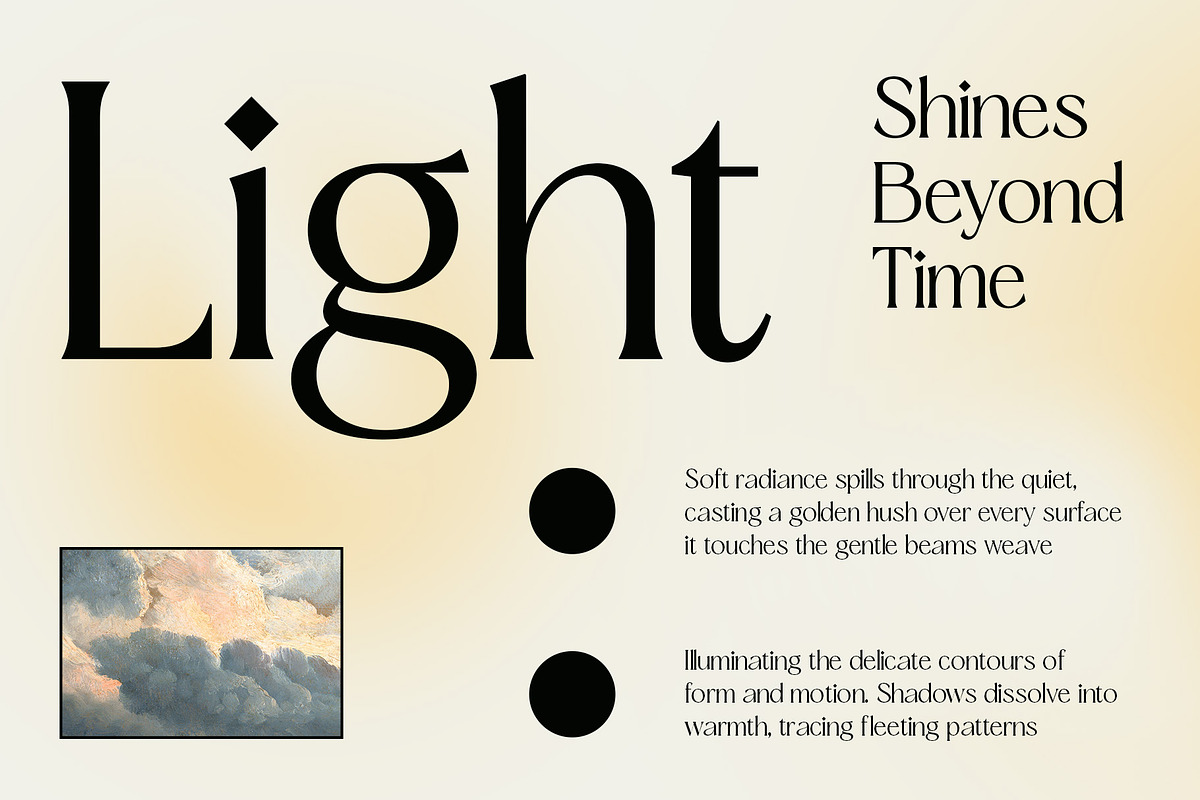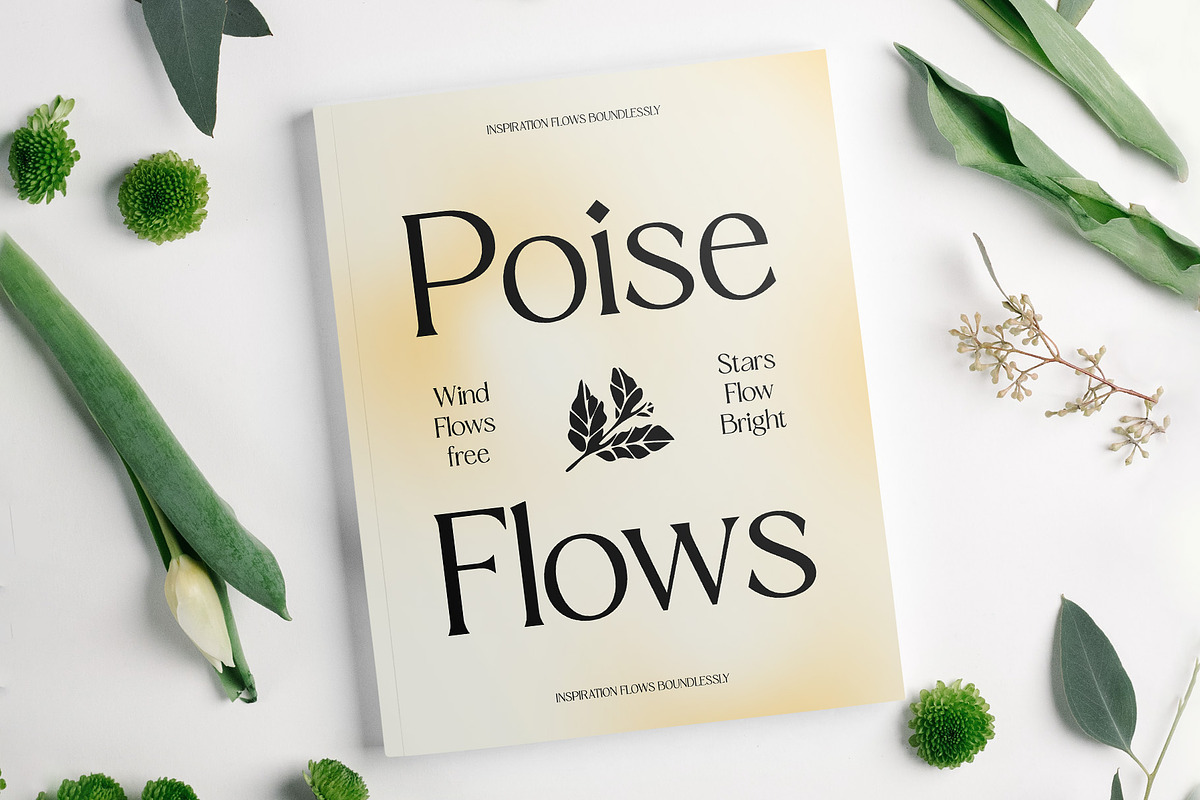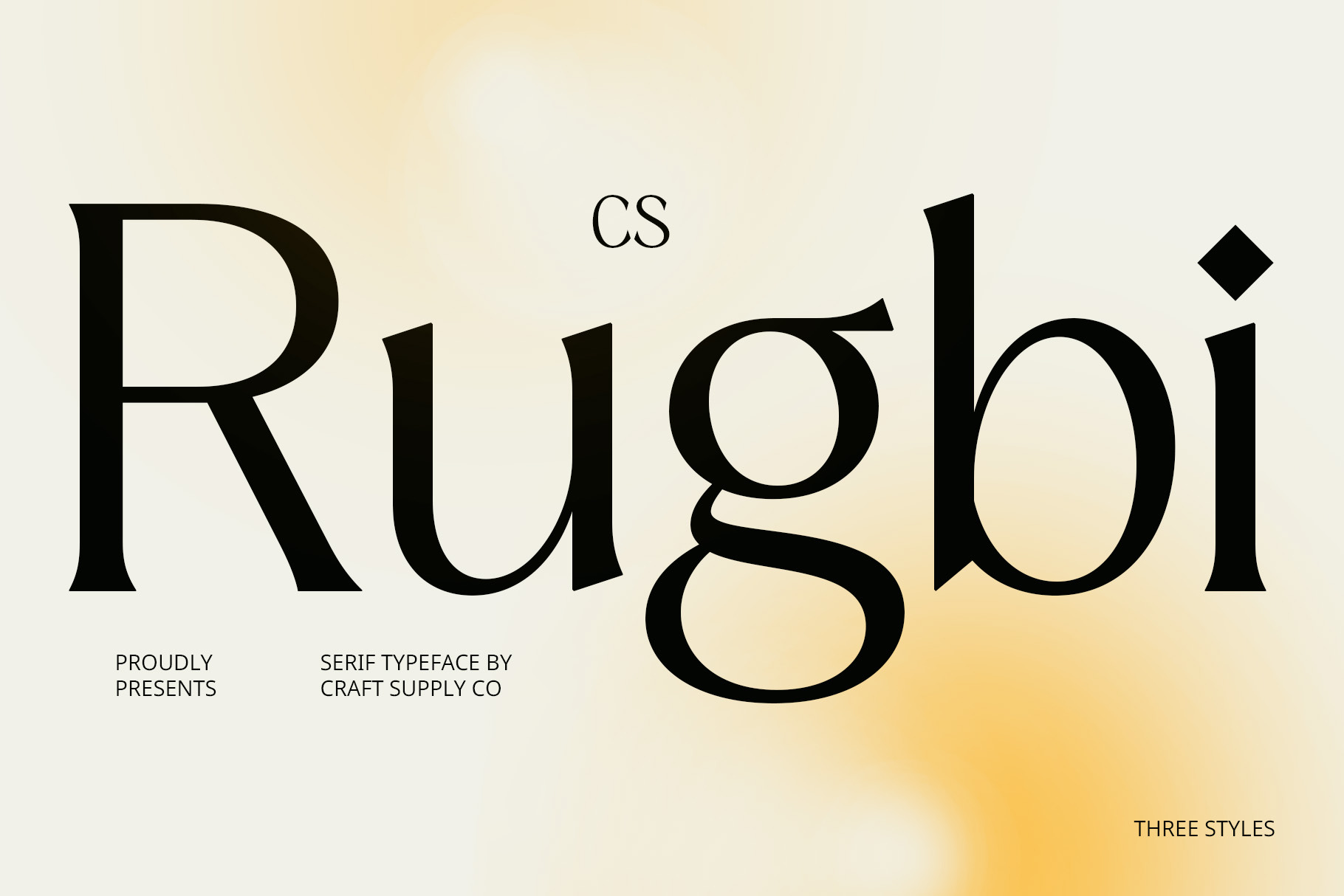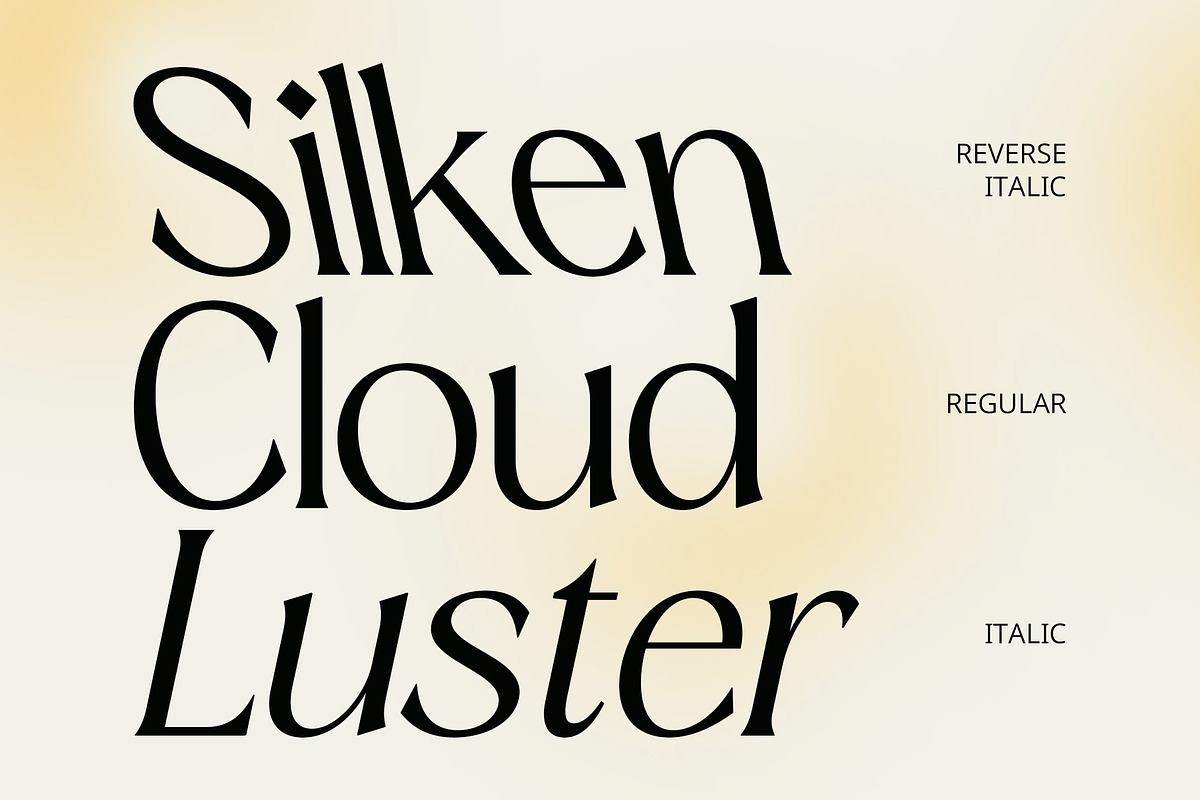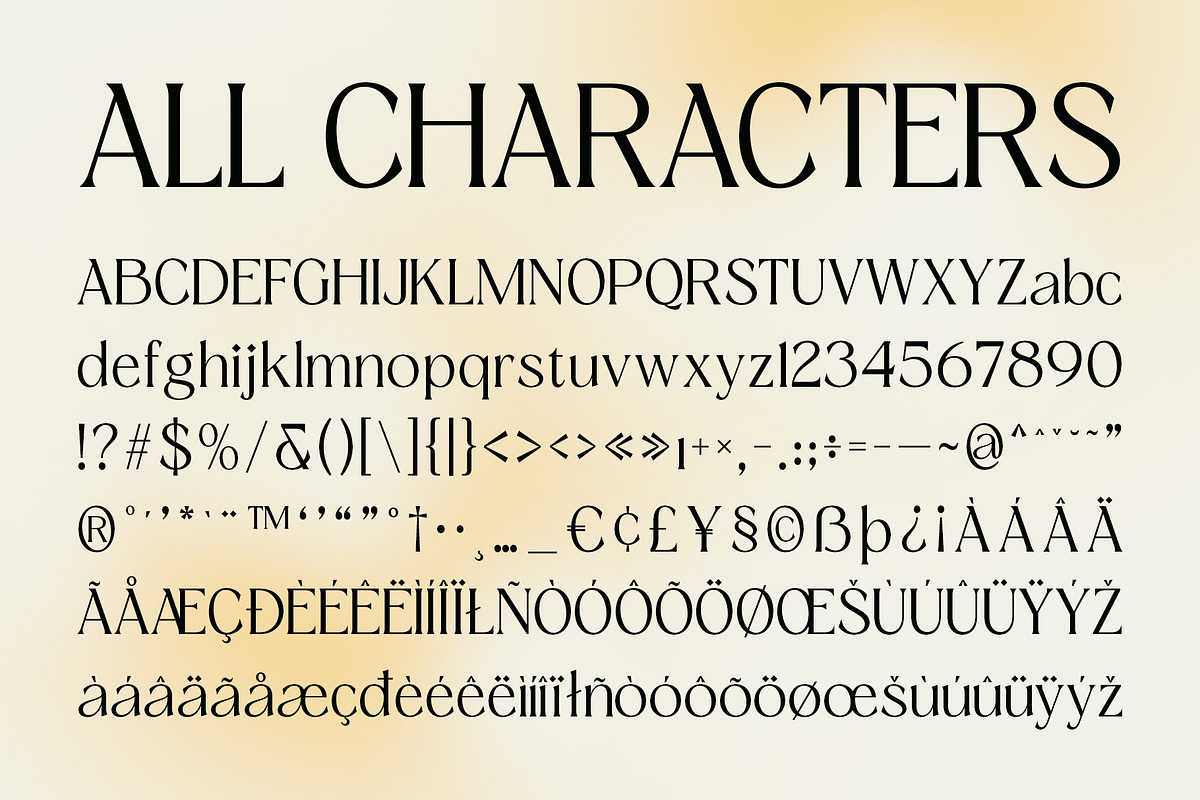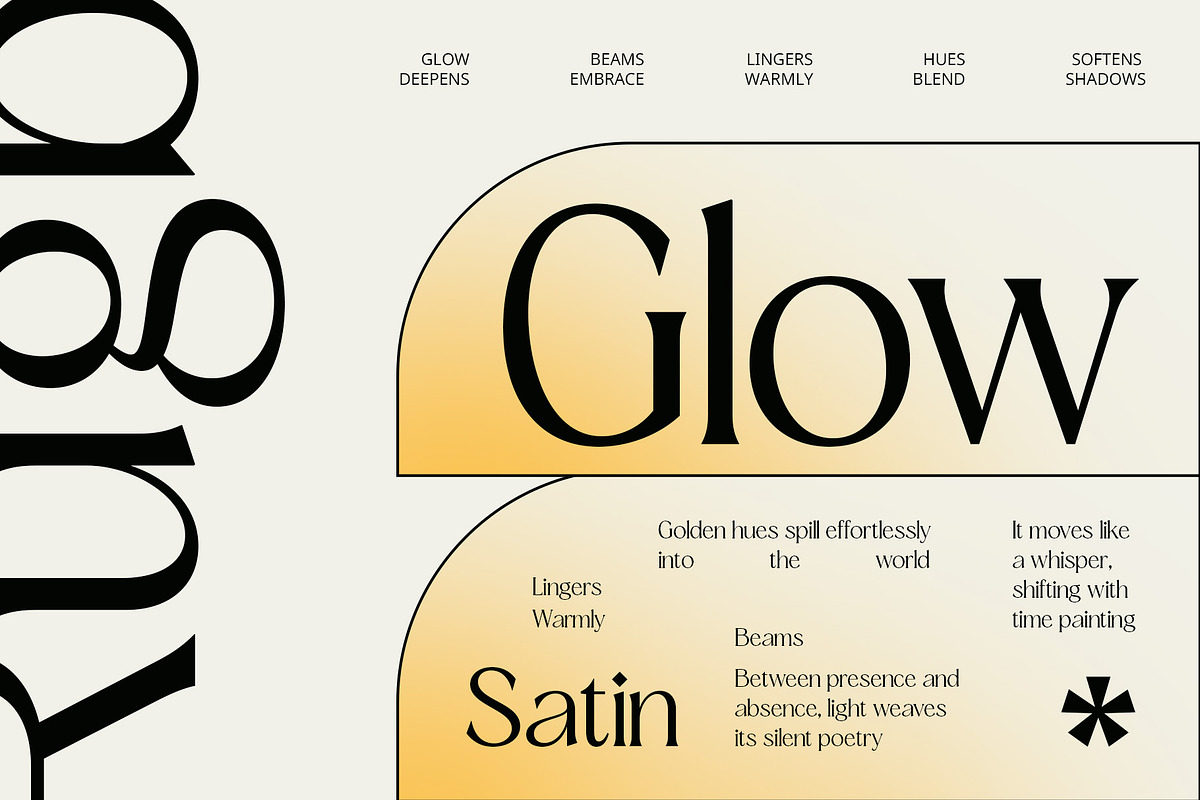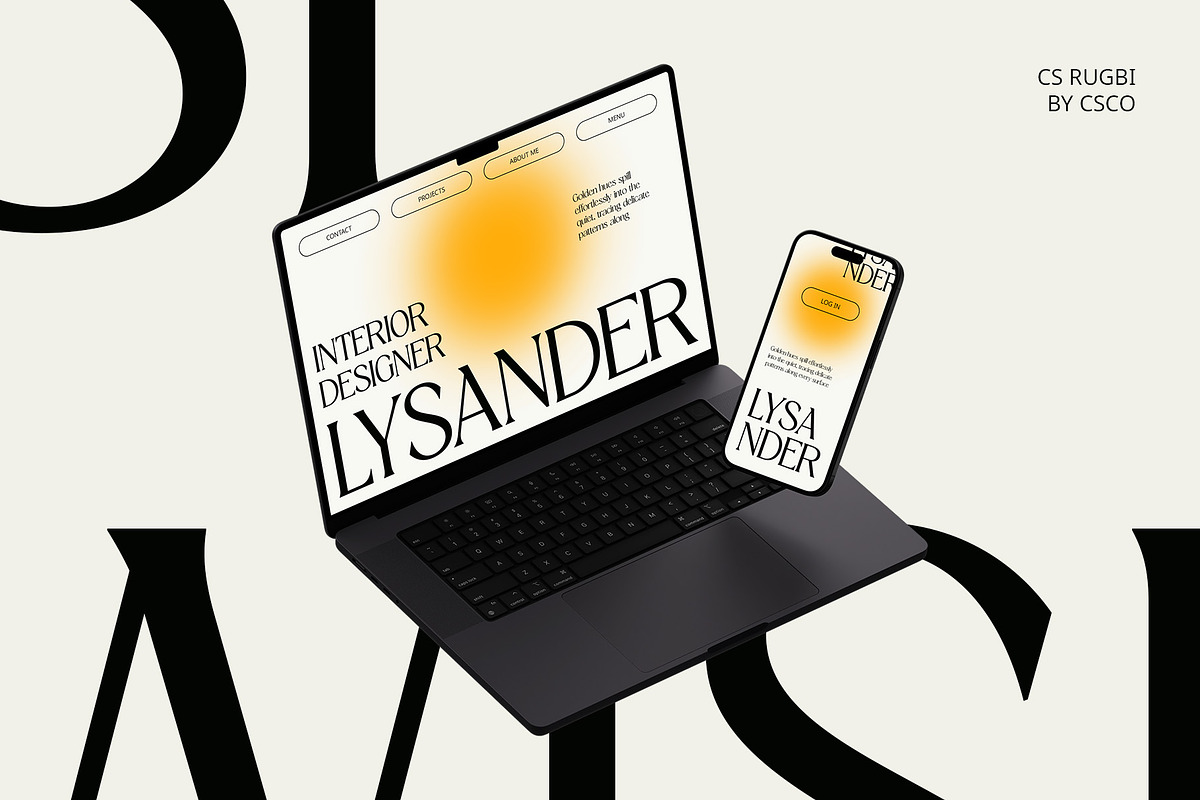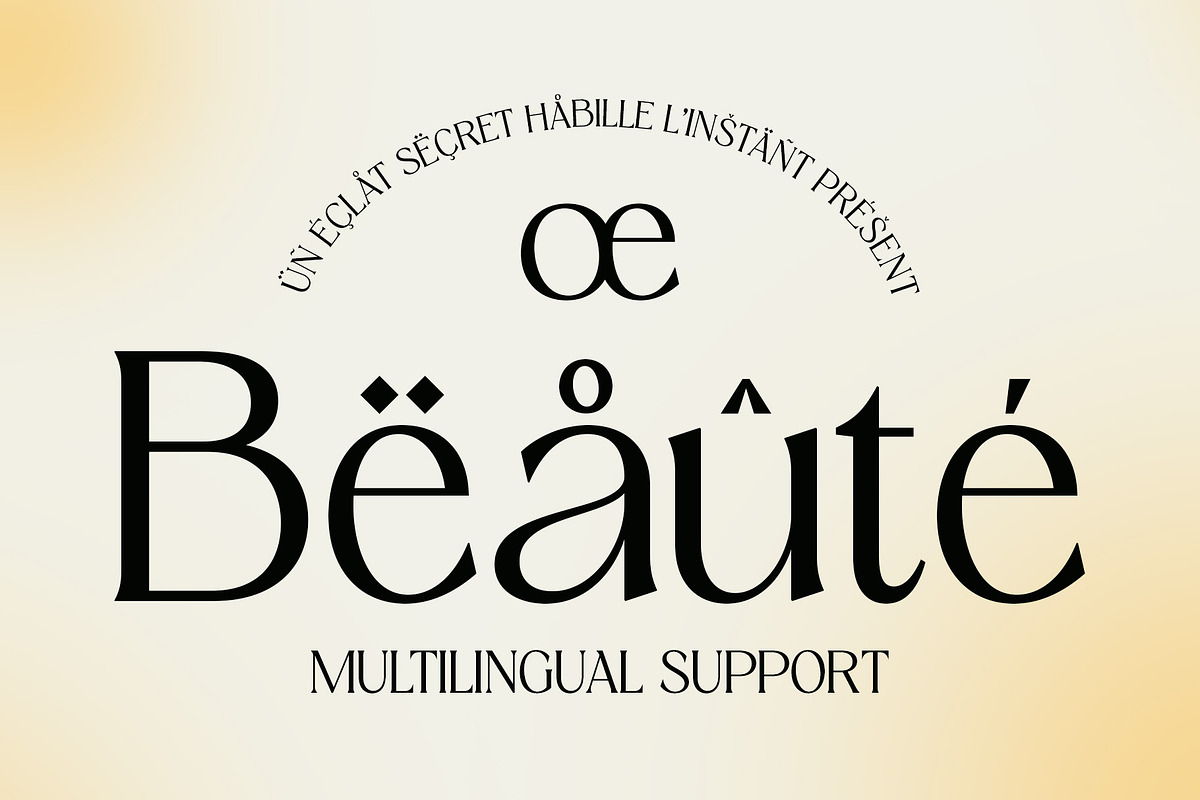
CS Rugbi – Contemporary Font
CS Rugbi – Contemporary Font with Classic Elegance
Modern Serif Font with Minimalist Structure CS Rugbi is a modern serif font that blends clean, minimalist structure with subtle classic touches. Its refined letterforms bring sophistication and clarity, making it a versatile typeface for elegant and professional designs.
Elegant Simplicity with a Timeless Feel Crafted with balanced proportions and smooth serifs, CS Rugbi offers a calm and poised look. The design evokes a sense of confidence and timeless charm, suitable for both modern and traditional aesthetics.
Versatile for Professional Use Whether you’re designing branding, editorial layouts, or business presentations, CS Rugbi delivers the polished tone your project needs. Its legibility and modern grace make it ideal for headlines, subheadings, and body text alike.
Perfect for Branding and Editorial Design From corporate identity to stylish magazine spreads, CS Rugbi supports a wide range of applications where clarity and elegance matter. It adapts seamlessly across digital and print formats, ensuring a cohesive visual impact.
A Reliable Serif for Sophisticated Visuals CS Rugbi combines modern design sensibilities with classic form, offering a contemporary serif font that’s equally strong in aesthetic appeal and functional versatility.
- CS Rugbi Regular
- CS Rugbi Italic
- CS Rugbi Reverse Italic